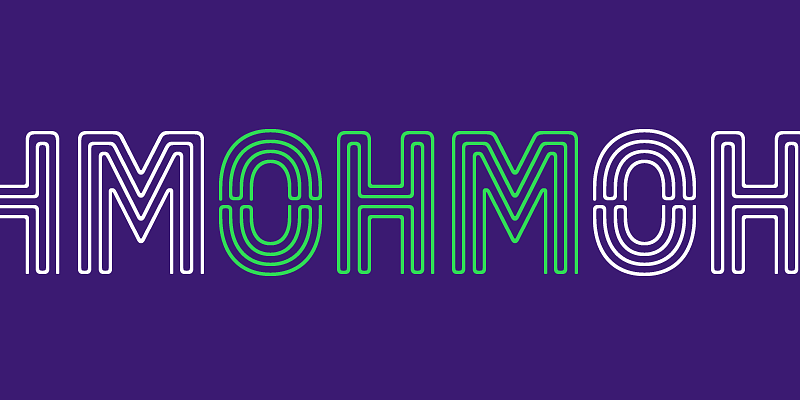
Ohm Font Free Download
Ohm Font Free Download is a clean, contemporary sans-serif typeface designed to bring modern simplicity and versatility to your design projects. With its geometric shapes, balanced proportions, and neutral aesthetic, this font is ideal for tech-related designs, websites, branding, editorial layouts, and any project that requires readability with a touch of sophistication.
Ohm Font Free Download offers excellent legibility at both small and large sizes, making it a great choice for both display and body text. Its minimalistic design ensures that it works well in various settings, from corporate communication to creative projects, while its versatile nature allows it to pair easily with other typefaces.
Whether you're designing for digital interfaces, marketing materials, or any contemporary branding project, Ohm provides a sleek and professional look.